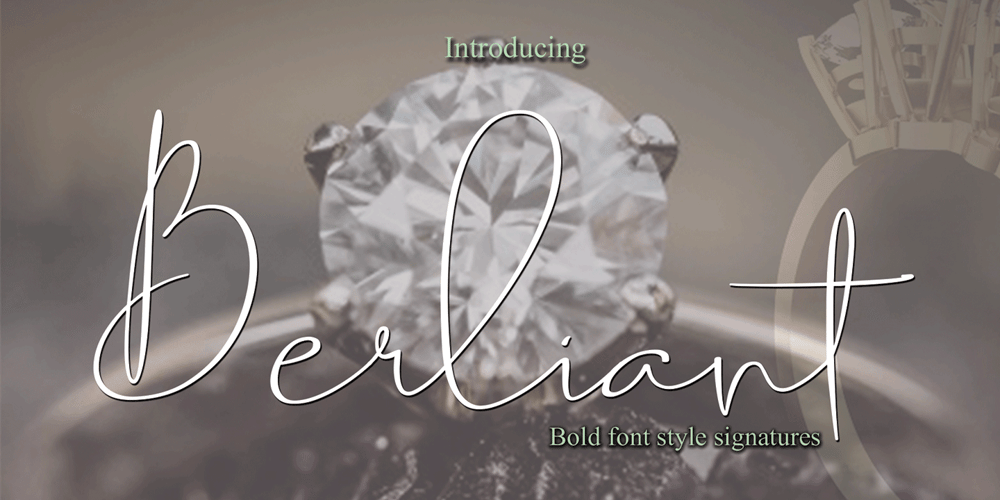
Berliant
Berliant font
Berliant Font Family was designed by Bandy Naqsya and published by Naqsya.Co. Berliant contains 1 styles and family package options. Introducing Berliant, a modern signature font. This font was designed by handwriting, and it has unique forms of calligraphy, the writing style is very natural. The Features of this fonts are: Standart ligatures Discretionary ligatures Berliant has PUA Unicode (Private Use Areas) Programs that support this font are Adobe Photo Shop, Adobe Illustrator, Adobe Indesign, Corel Draw and Microsoft Office. To enable the OpenType Stylistic alternates, you need a program that supports OpenType features such as Adobe Illustrator CS, Adobe Indesign & CorelDraw X6-X7. Languages supported: Breton, Catalan, Czech, Danish, Estonian,French, German, Hungarian, Icelandic, Italian, Romanian, Scottish Gaelic, Slovak, Latvian, Lithuanian, Norwegian, English, Finnish, Polish, Portuguese, Slovenian, Spanish, Swedish, Turkish, Welsh. Basically all European languages that are based on the Latin alphabet. Berliant can be used for various purposes such as headings, logos, wedding invitation, t-shirt, letterhead, signage, labels, news, posters, badges etc.